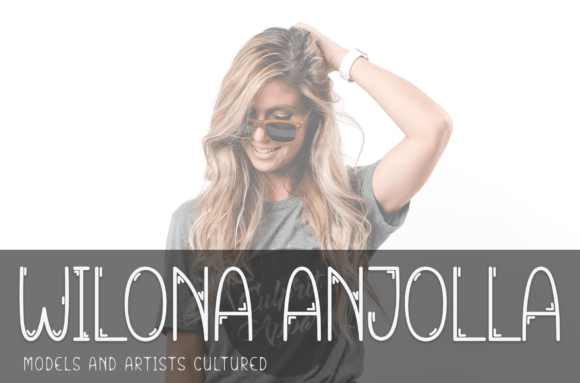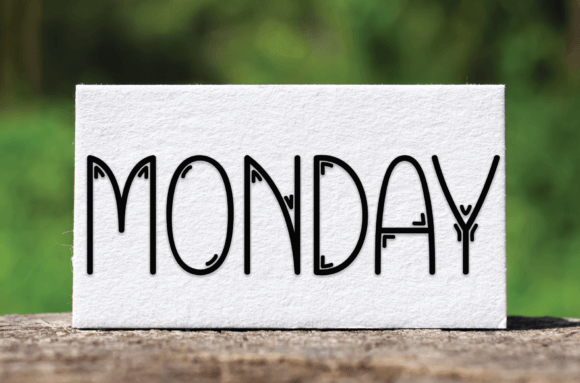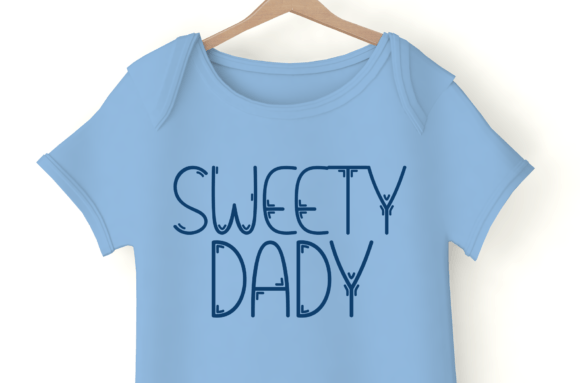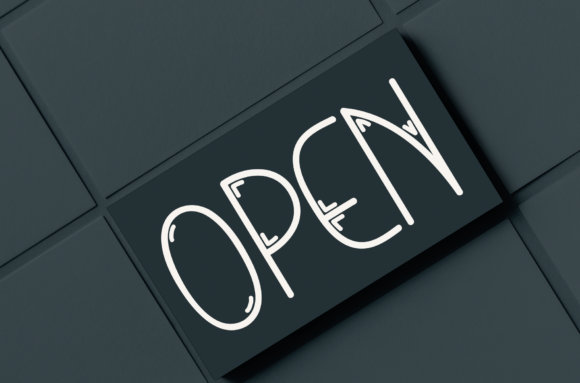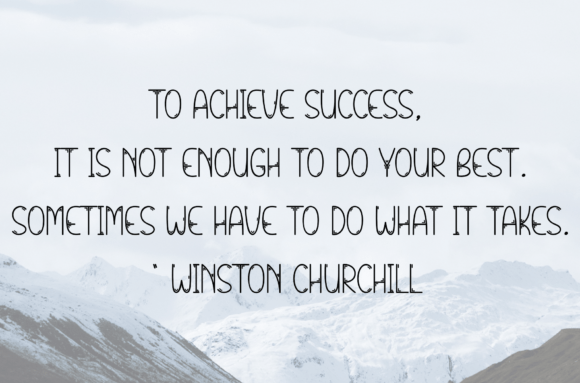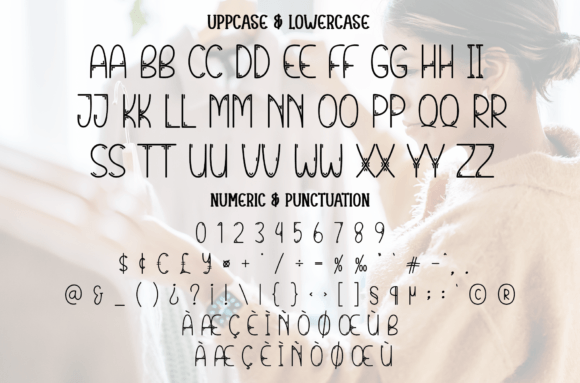
The Designer Font: A Sweet and Friendly Handwritten Display Font
Have you ever been working on a design project, and suddenly, you’re stuck on finding the perfect font? I recall a wedding invitation design project where I struggled to find a font that captured the sweet and playful vibe my client was looking for. That’s when I stumbled upon the Designer font, and it instantly became my go-to choice. In this article, I’ll share my experience with this lovely font, its features, and how to make the most of it in your designs.
A Personal Review of Designer Font
I’m excited to share my honest review of the Designer font. Here’s what I love about it:
- ✨ Sweet and friendly vibe: The Designer font has a warm and approachable feel to it, making it perfect for designs that require a personal touch.
- ✅ Fresh and neat look: The font’s clean lines and neat appearance make it easy to read and perfect for display text.
- ✅ Versatile: The font is suitable for various design projects, from wedding invitations to social media graphics.
While the Designer font is amazing, there are a few quirks to keep in mind:
- ⚠️ Limited use in long texts: Due to its display nature, the font might not be the best choice for lengthy texts.
- 🤔 Some letters may appear similar: A few letters, like ‘I’ and ‘l’, might appear similar, which can be a minor issue in certain designs.
The Backstory of Designer Font
The Designer font was created with the intention of providing a fresh and playful take on traditional handwritten fonts. The designer aimed to create a font that would be perfect for designs that require a personal touch, such as wedding invitations and greeting cards.
Here are some frequently asked questions about the Designer font:
| What is the Designer font best used for? | The Designer font is ideal for designs that require a personal touch, such as wedding invitations, greeting cards, and social media graphics. |
| Is the Designer font suitable for long texts? | No, the Designer font is a display font and might not be the best choice for lengthy texts. |